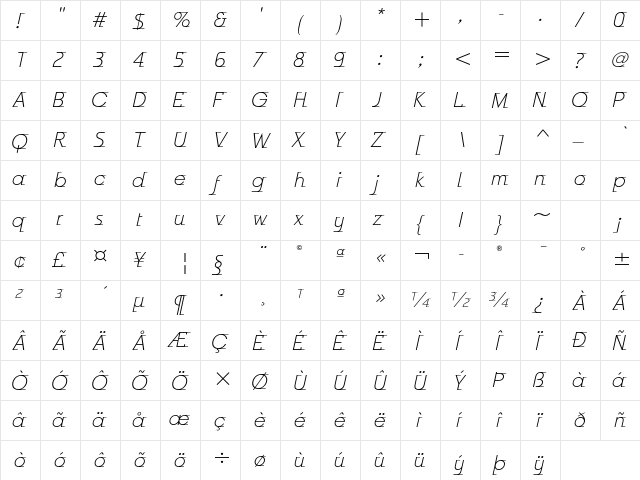
Odyssee ITC Std Light Italic Font Preview
| Style | Light Italic |
| Designer | Roselyne Besnard and Michel Besnard |
Design Context for Odyssee ITC Std Typeface
Odyssee ITC Std takes a measured approach to typography — its balanced proportions and neutral character make it a reliable workhorse for both digital and print work. The dynamic lean of this cut emphasises speed and emphasis in any layout. Its slender proportions lend an understated elegance to any composition.
Pro Tip: Try Odyssee ITC Std for annotation and caption copy alongside an upright companion — the contrast in angle creates a dynamic but ordered typographic system.